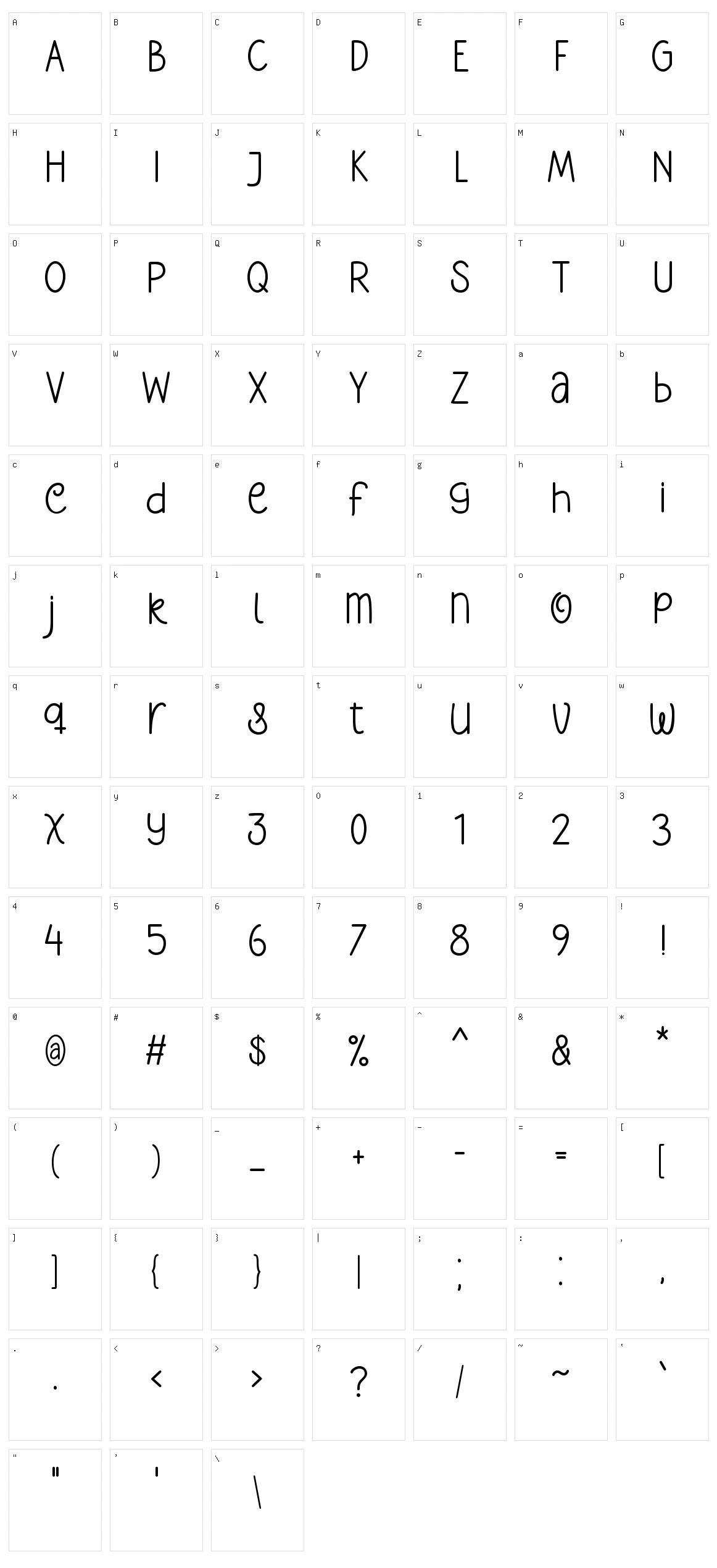
The free font Slowly Lovely Script is carefully designed by Masa Aska Sanurumi, showcasing a thoughtful balance of creativity and usability and falls under the Script font style. When you download the ZIP file, it contains only 45.27 KB of font files, making it lightweight and quick to download. Please review the license details below to understand permitted usage and distribution rights. If license information is not available, we recommend using this font for personal projects only or contacting the author directly for commercial usage permissions.